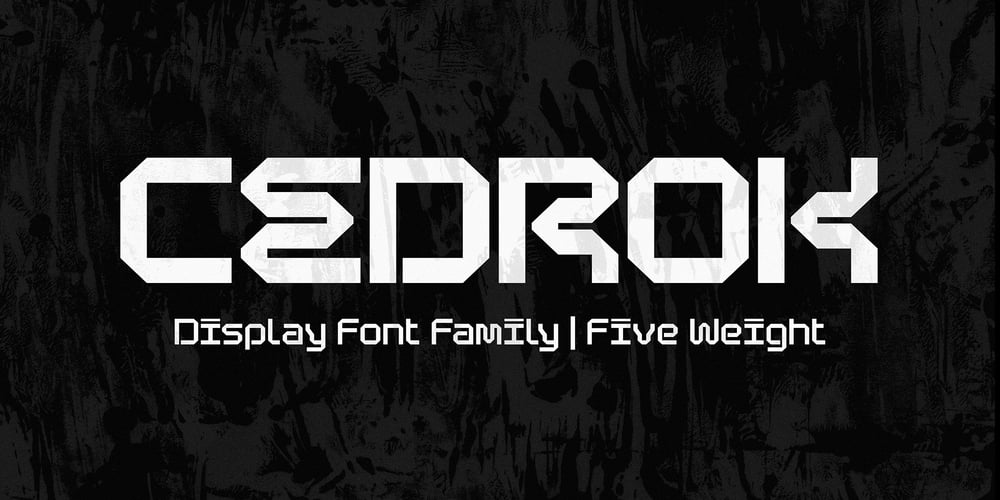
SMZ Cedrok Font Family was designed by Szymon Mandziarz and published by SMZ Design. SMZ Cedrok contains 5 styles and family package options. Cedrok is a modular font with a geometric form. It comes in five weights (regular, medium, semi-bold, bold, extra-bold). The expressive character will add strength to the designs. They will work well in branding, headlines, clothing, posters and other eye-catching designs with an intriguing style.